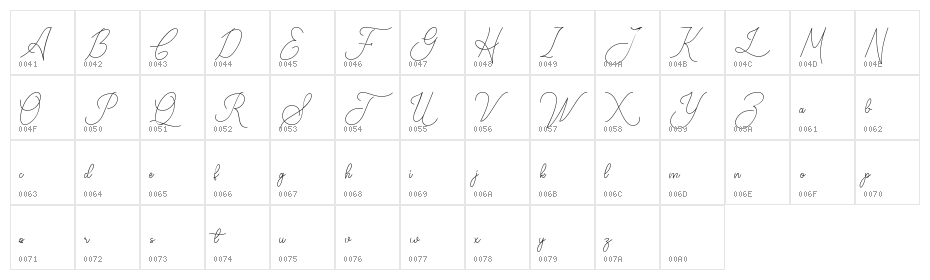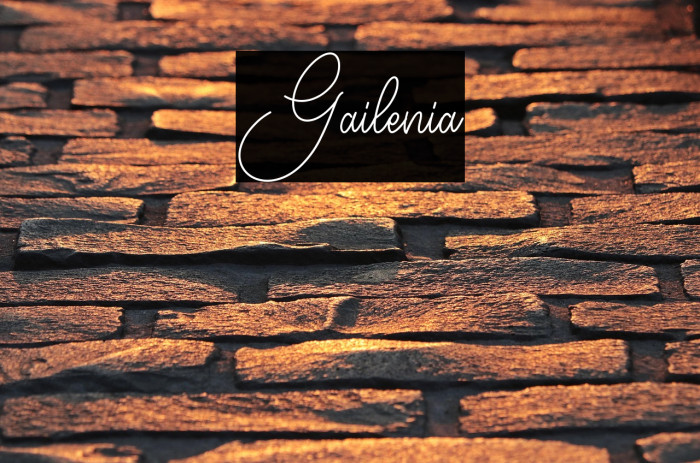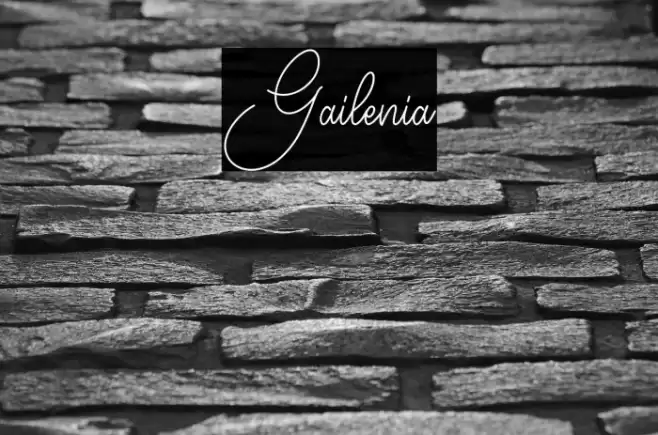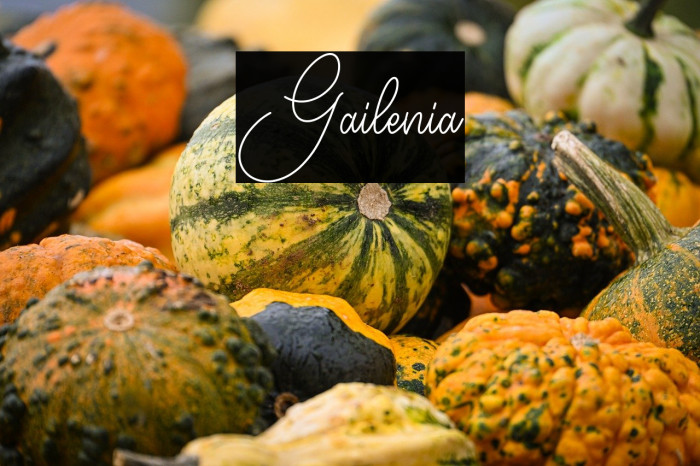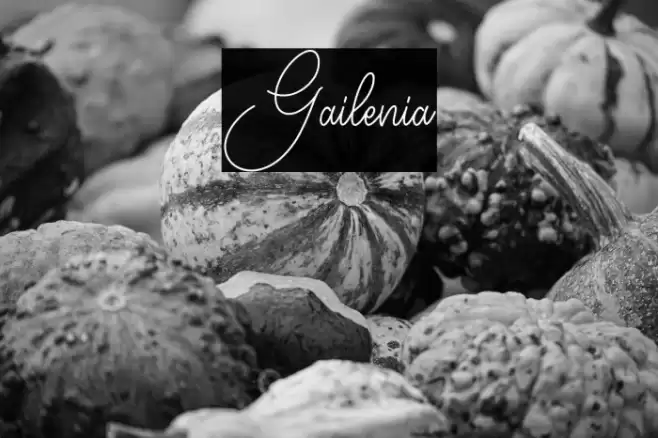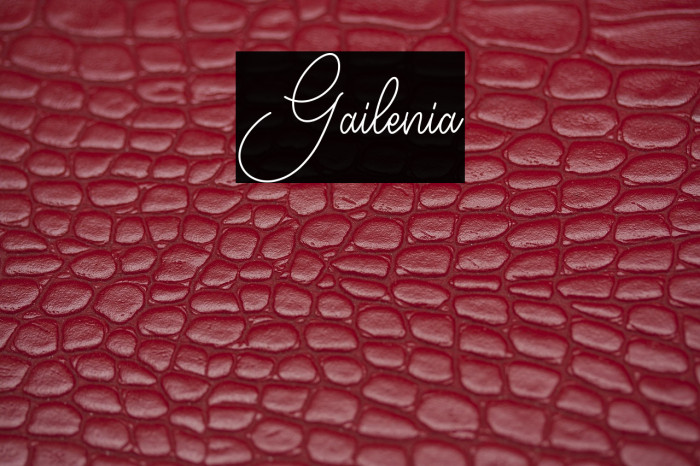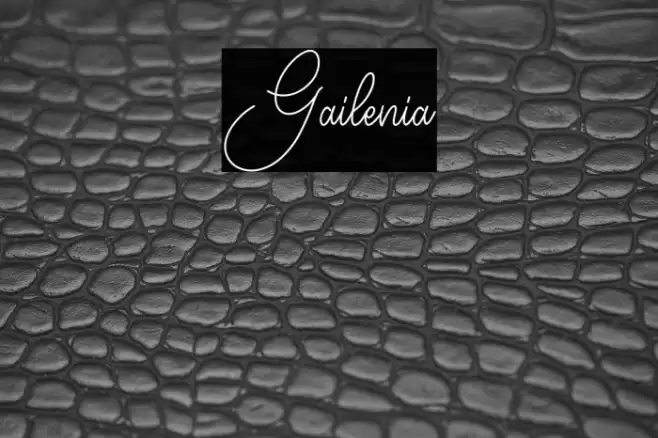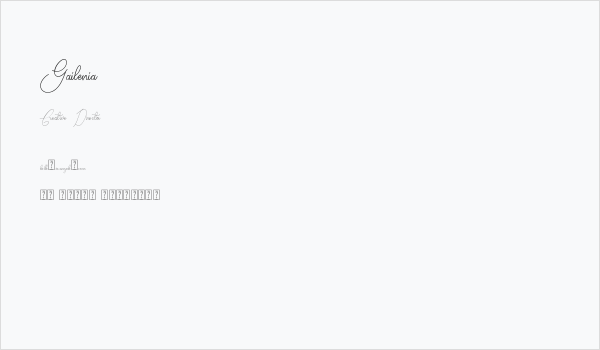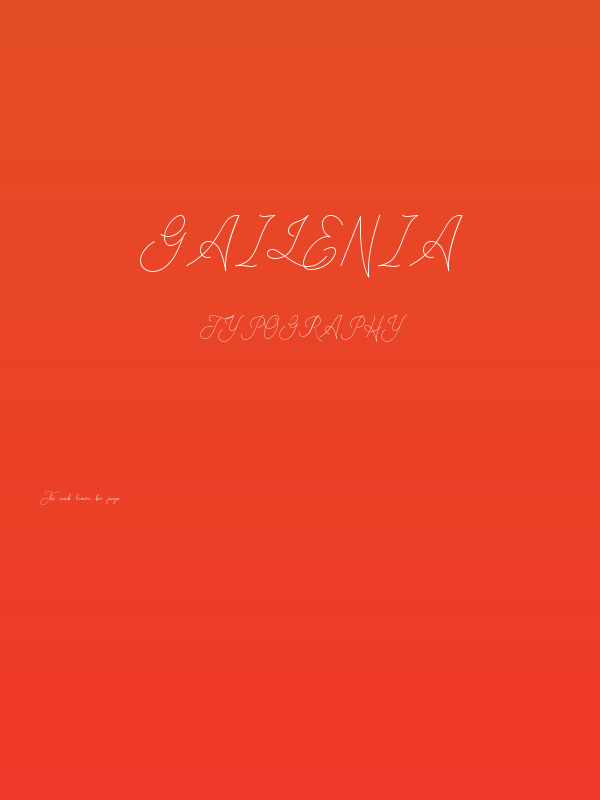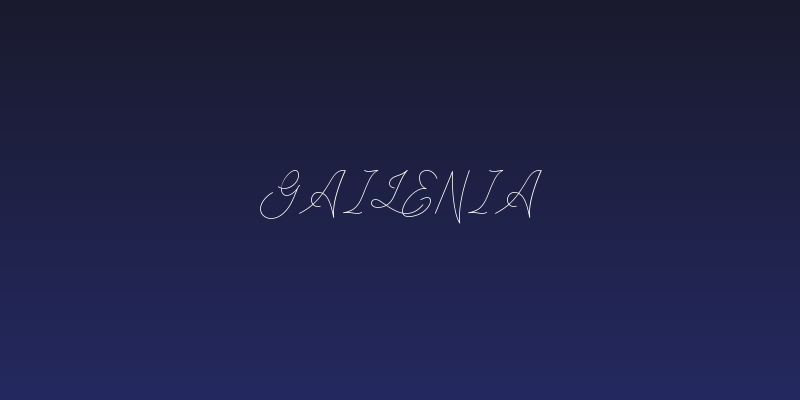
Gailenia Font
Gailenia Description
This elegant script font features a flowing, cursive style with delicate, thin strokes that convey a sense of sophistication and grace. The uppercase letters are characterized by sweeping curves and loops, while the lowercase letters maintain a consistent fluidity, enhancing readability. The overall design is reminiscent of classic calligraphy, with a modern twist that makes it suitable for both traditional and contemporary projects. The font's intricate details and smooth connections between letters create a harmonious and visually appealing text, ideal for adding a touch of elegance to any design.
| Proposed Projects | Ideal for wedding invitations, elegant branding, greeting cards, and sophisticated logos. |